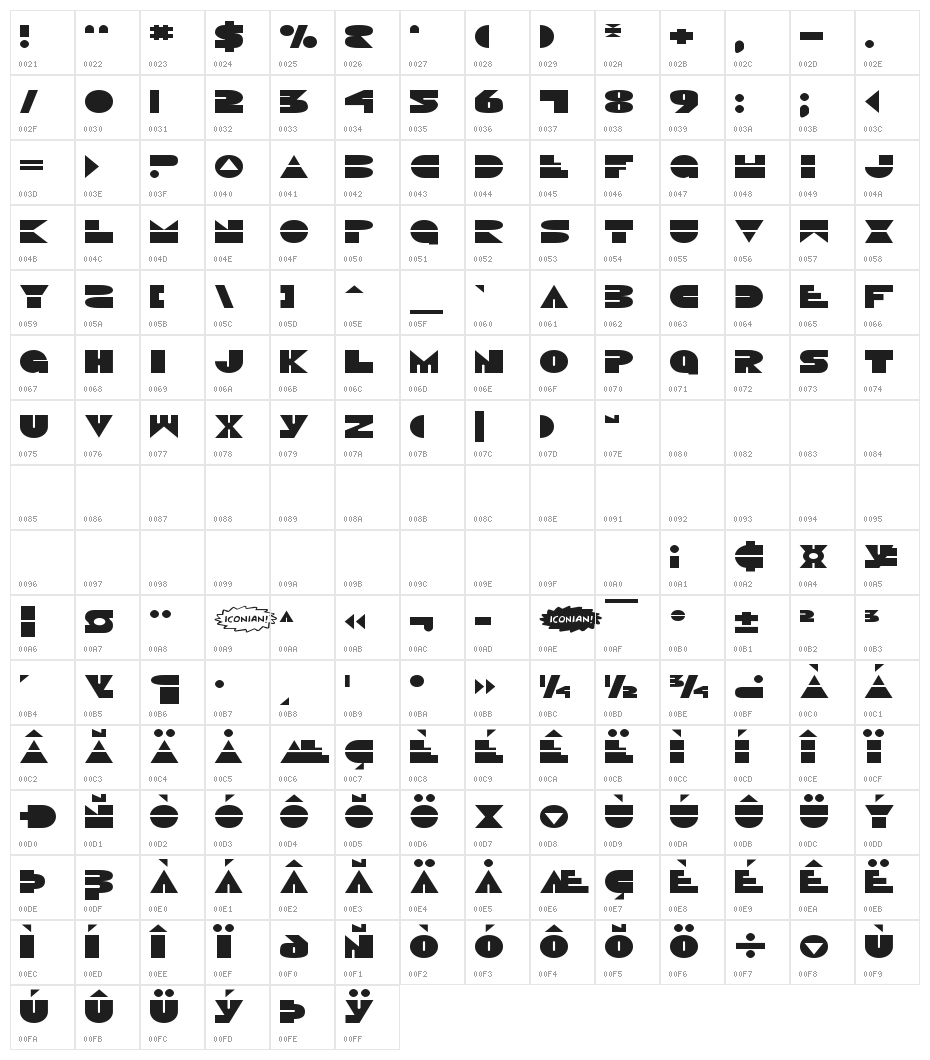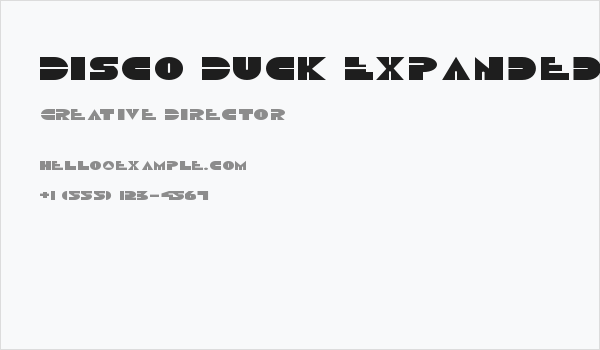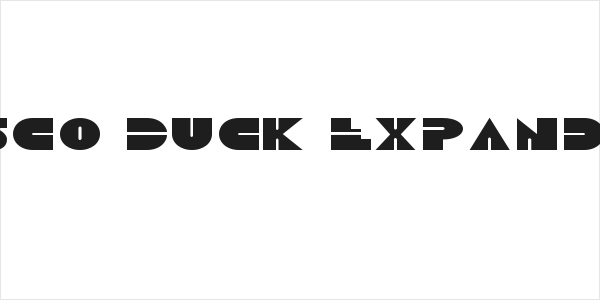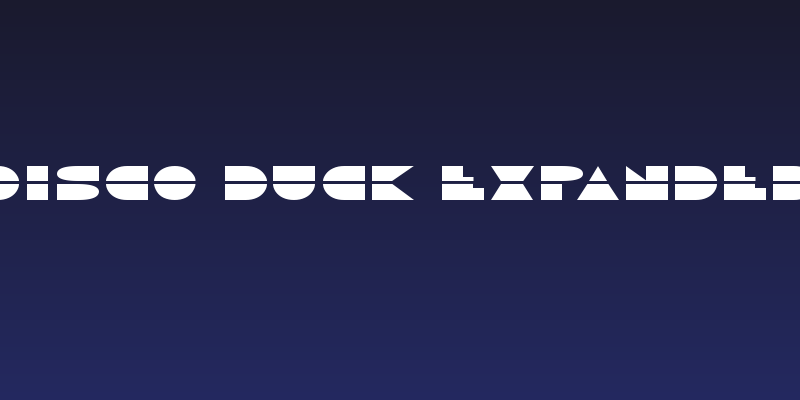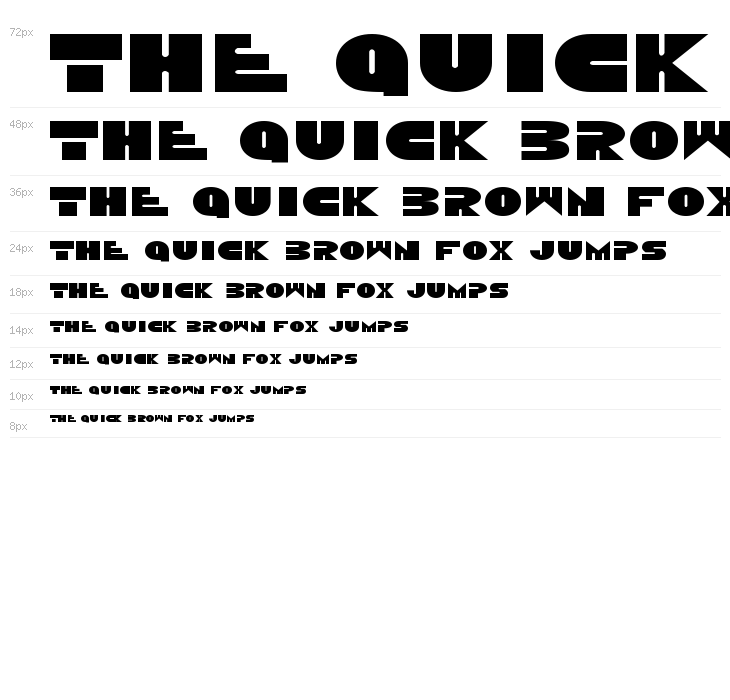
Disco Duck Expanded Font
Disco Duck Expanded Description
This font features a bold, geometric style with a strong emphasis on angular shapes and sharp edges. The characters are constructed with a combination of straight lines and curves, creating a dynamic and futuristic appearance. The uppercase letters are particularly striking, with a consistent use of triangular and rectangular forms that give the font a unique, edgy look. The numbers and special characters maintain this geometric theme, ensuring a cohesive design throughout. This font is ideal for projects that require a modern, eye-catching aesthetic.